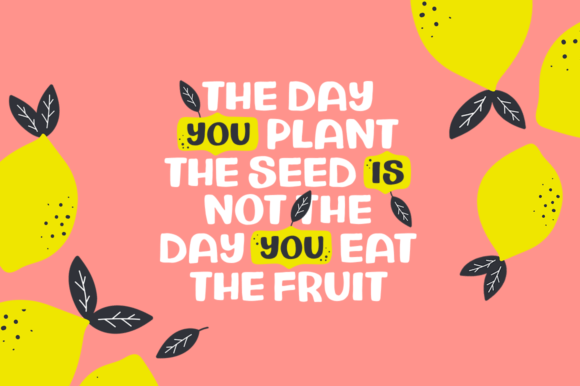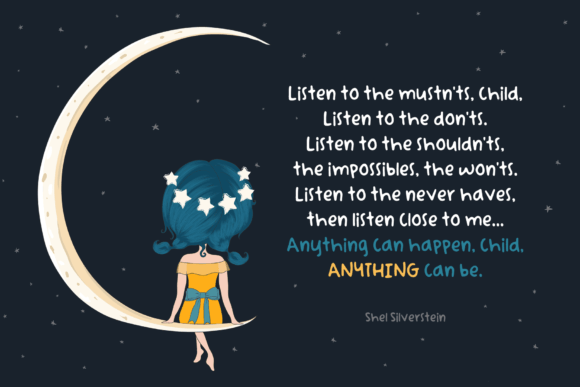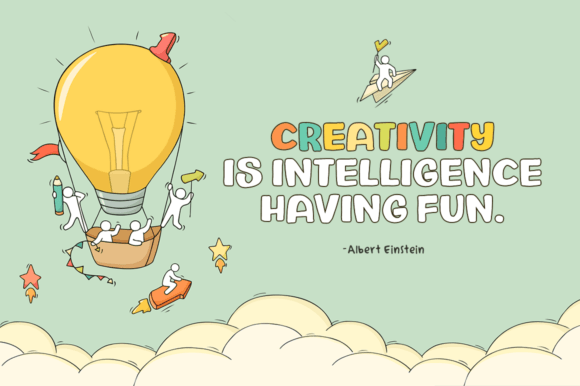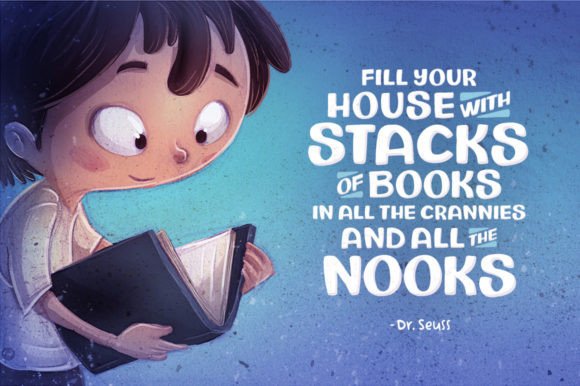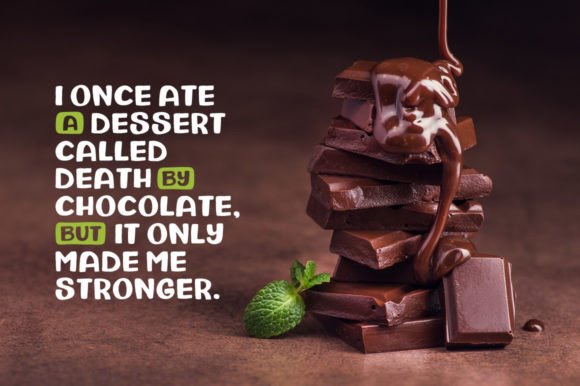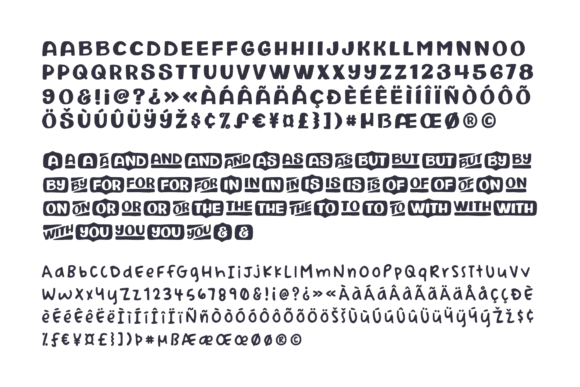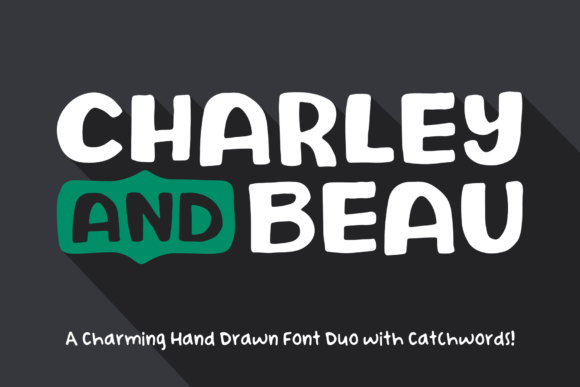
Meet Charley and Beau: The Ultimate Font Duo for Designers and Crafters
Are you tired of using the same old fonts in your designs? Look no further than Charley and Beau, a charming font duo that is sure to elevate your work. This dynamic duo combines a bold, all-caps, block letter font with a simple hand-written sans, making it perfect for a wide range of projects. In this article, we’ll take a closer look at Charley and Beau, and explore how you can use them to add a touch of personality to your designs.
The Charley Font: Bold and Beautiful
Charley is a bold, all-caps, block letter font that is sure to make a statement. With its clean lines and geometric shape, Charley is perfect for headlines, titles, and other applications where you want to grab attention. The font is highly legible, even at small sizes, making it versatile and easy to use. Whether you’re designing a logo, a poster, or a website, Charley is a great choice.
The Beau Font: Simple and Elegant
Beau, on the other hand, is a simple hand-written sans font that is perfect for adding a touch of personality to your designs. With its flowing lines and organic shape, Beau is great for body text, captions, and other applications where you want to add a bit of whimsy. The font is highly readable, even at small sizes, making it perfect for long-form text.
Why Charley and Beau Work Well Together
So why do Charley and Beau work so well together? The answer lies in their contrasting styles. Charley’s bold, geometric shape provides a perfect foil to Beau’s flowing, organic lines. The two fonts complement each other beautifully, creating a visually appealing combination that is sure to add interest to your designs. Whether you’re designing a logo, a brochure, or a website, Charley and Beau are a great choice.
Charming Catchwords: Add a Touch of Personality to Your Designs
But that’s not all – Charley and Beau also come with a set of charming catchwords in four variations. These catchwords are perfect for adding a touch of personality to your designs, and can be used to add a bit of whimsy to your headlines, titles, and other text elements. With four variations to choose from, you’re sure to find the perfect catchword to match your design style.
Charley and Beau are perfect for designers and crafters who want to add a touch of personality to their work. Whether you’re designing a logo, a poster, or a handmade craft, these fonts are sure to inspire. The fonts are highly versatile, and can be used for a wide range of projects, from digital designs to print materials.
Tips for Using Charley and Beau
So how can you get the most out of Charley and Beau? Here are a few tips:
- Use Charley for headlines and titles, and Beau for body text and captions.
- Experiment with different font sizes and combinations to create visual interest.
- Use the catchwords to add a touch of personality to your designs.
- Don’t be afraid to get creative and try new things – Charley and Beau are highly versatile fonts that can be used in a wide range of projects.
In conclusion, Charley and Beau are a charming font duo that is sure to elevate your designs. With their bold, all-caps, block letter font and simple hand-written sans, these fonts are perfect for a wide range of projects. Add to that a set of charming catchwords in four variations, and you’ve got a font combination that is sure to inspire. Whether you’re a designer or a crafter, Charley and Beau are a great choice – so why not give them a try today?